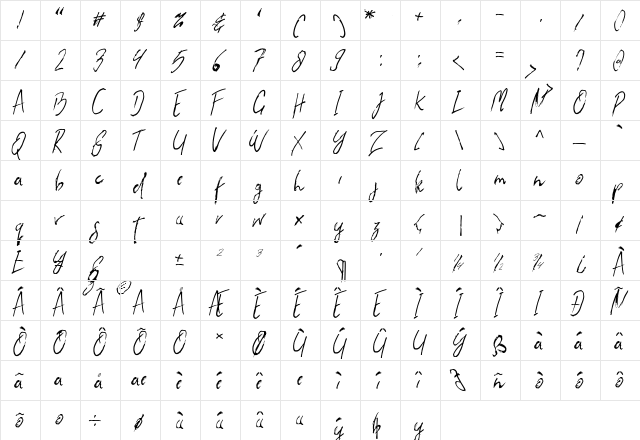
the flashter Regular
Design Context for the flashter Typeface
the flashter is a composed and adaptable typeface that performs quietly and consistently across a wide range of design contexts.